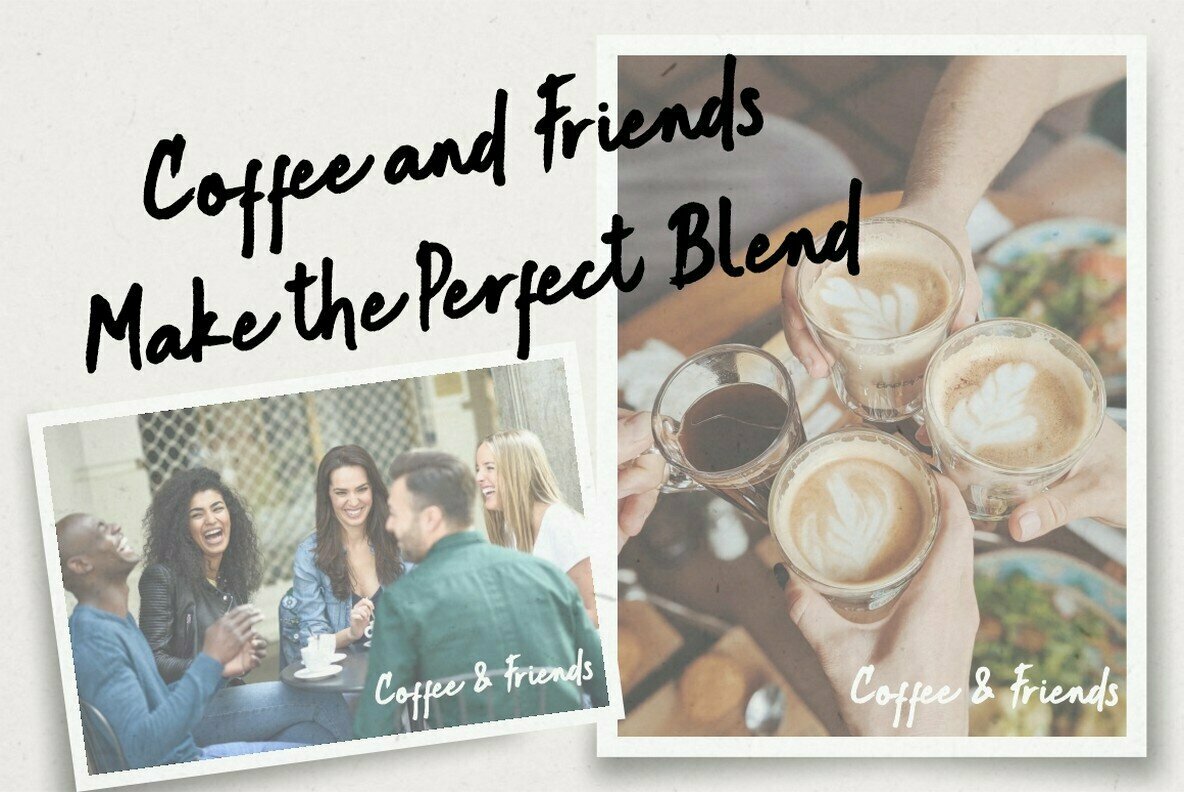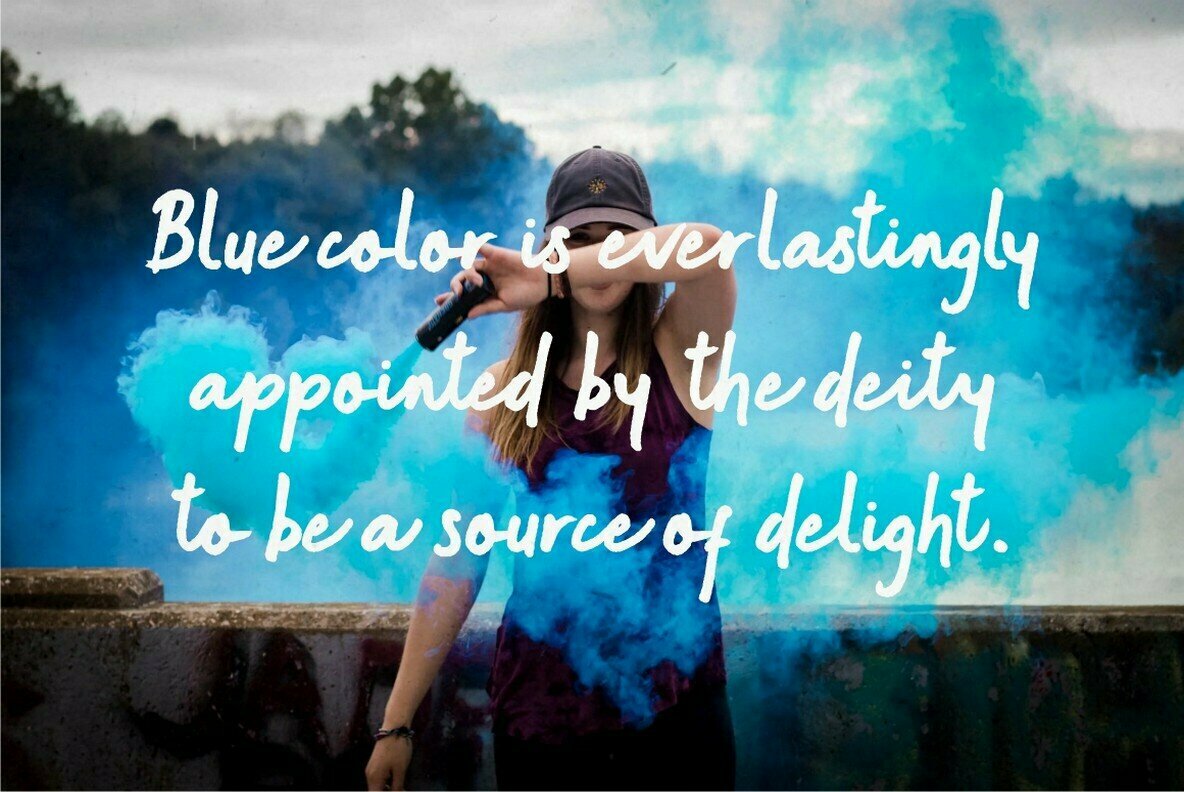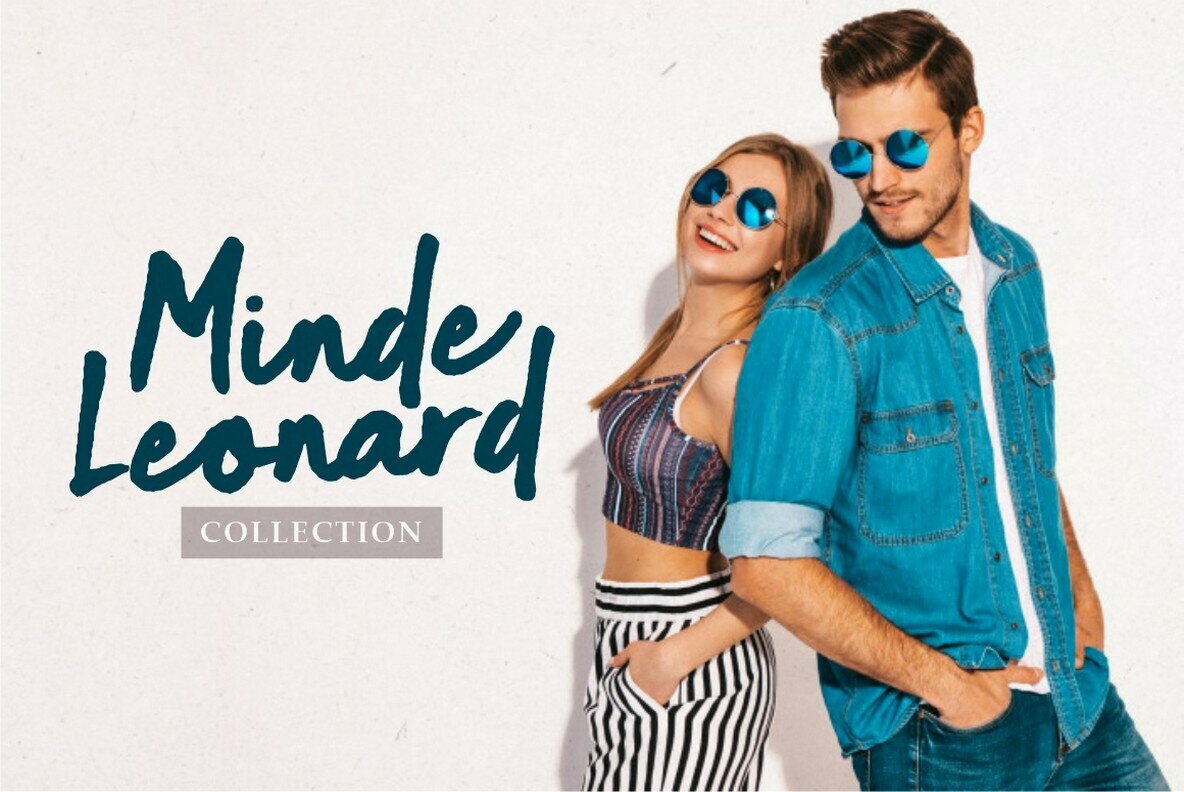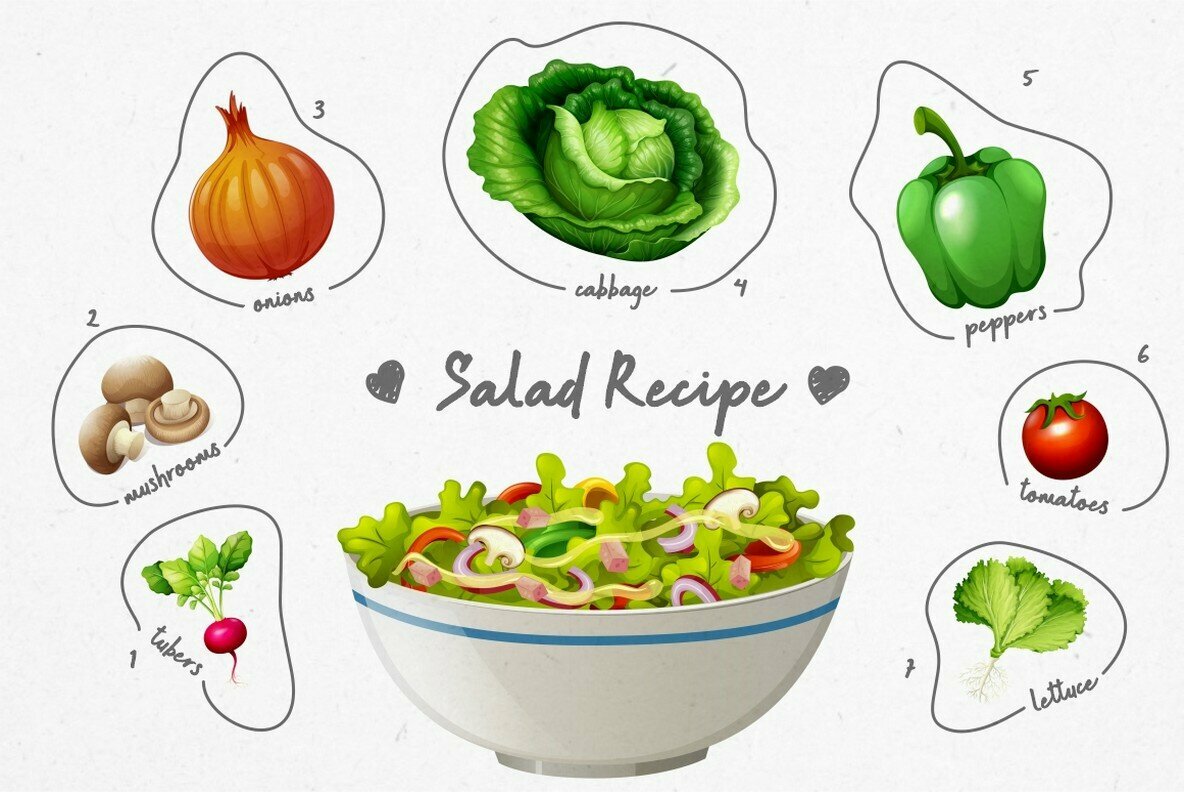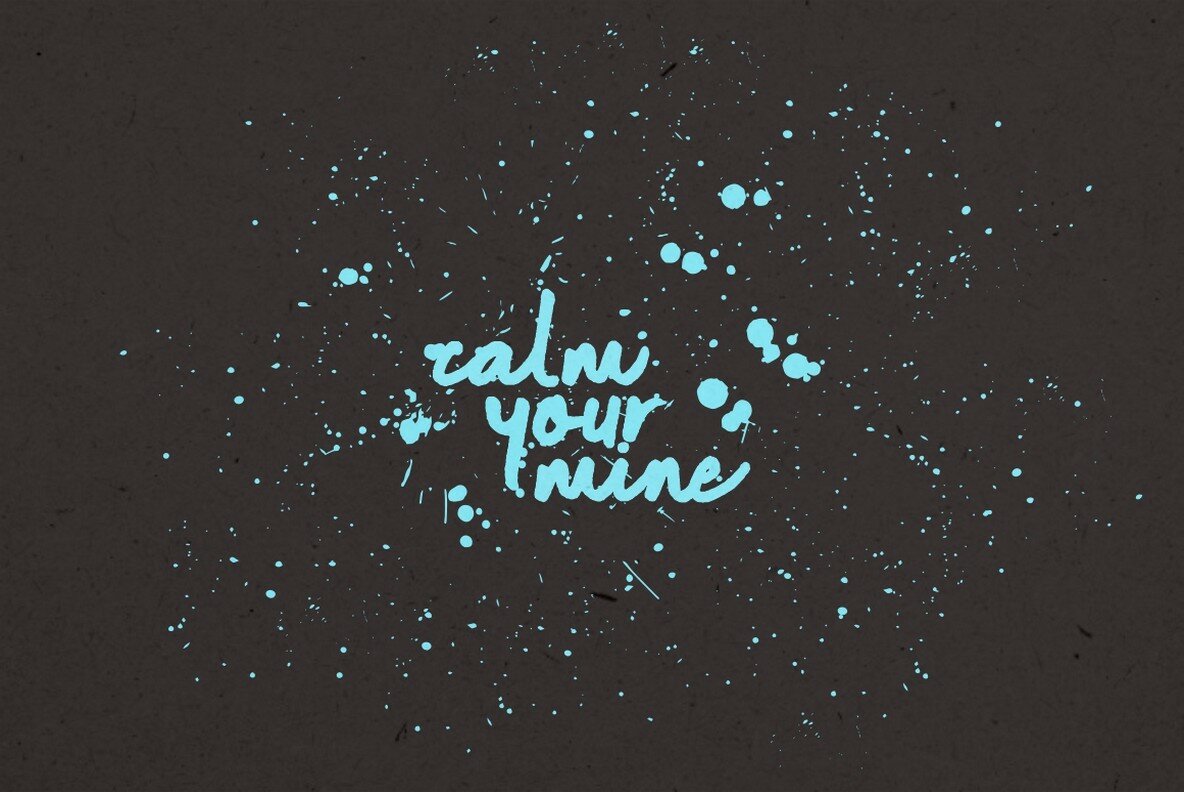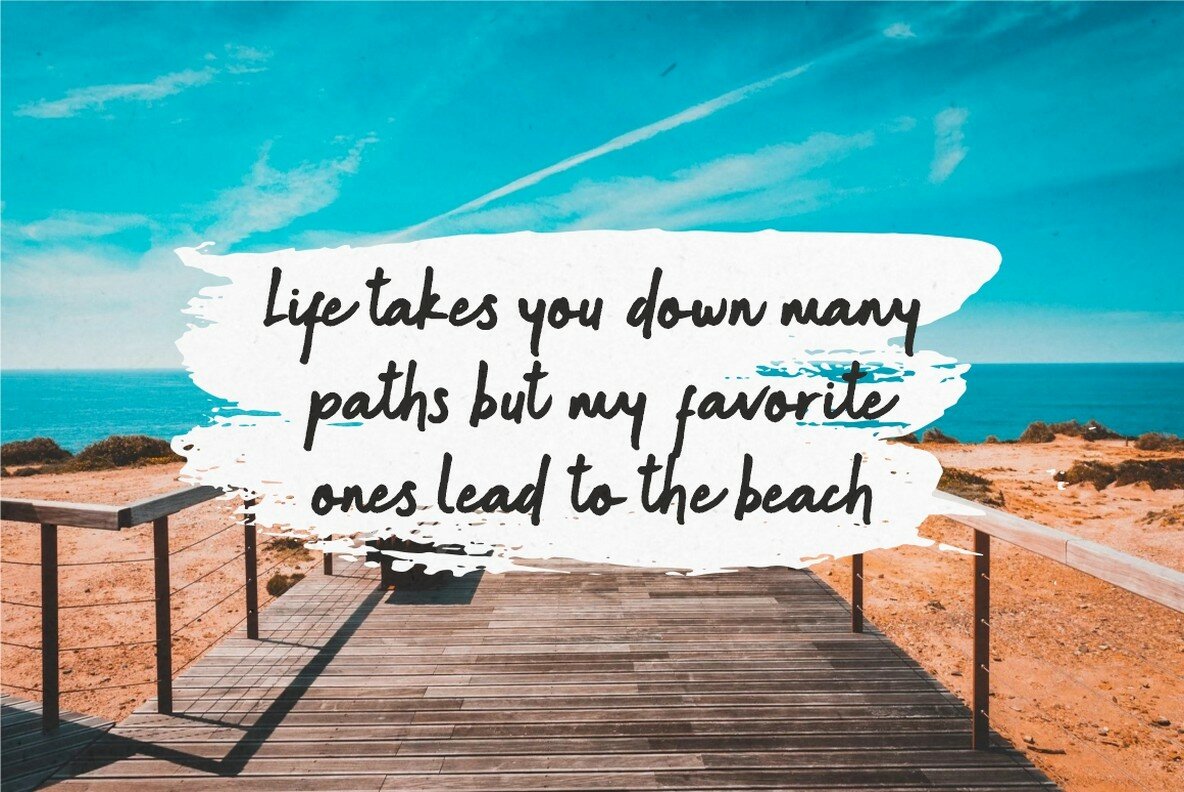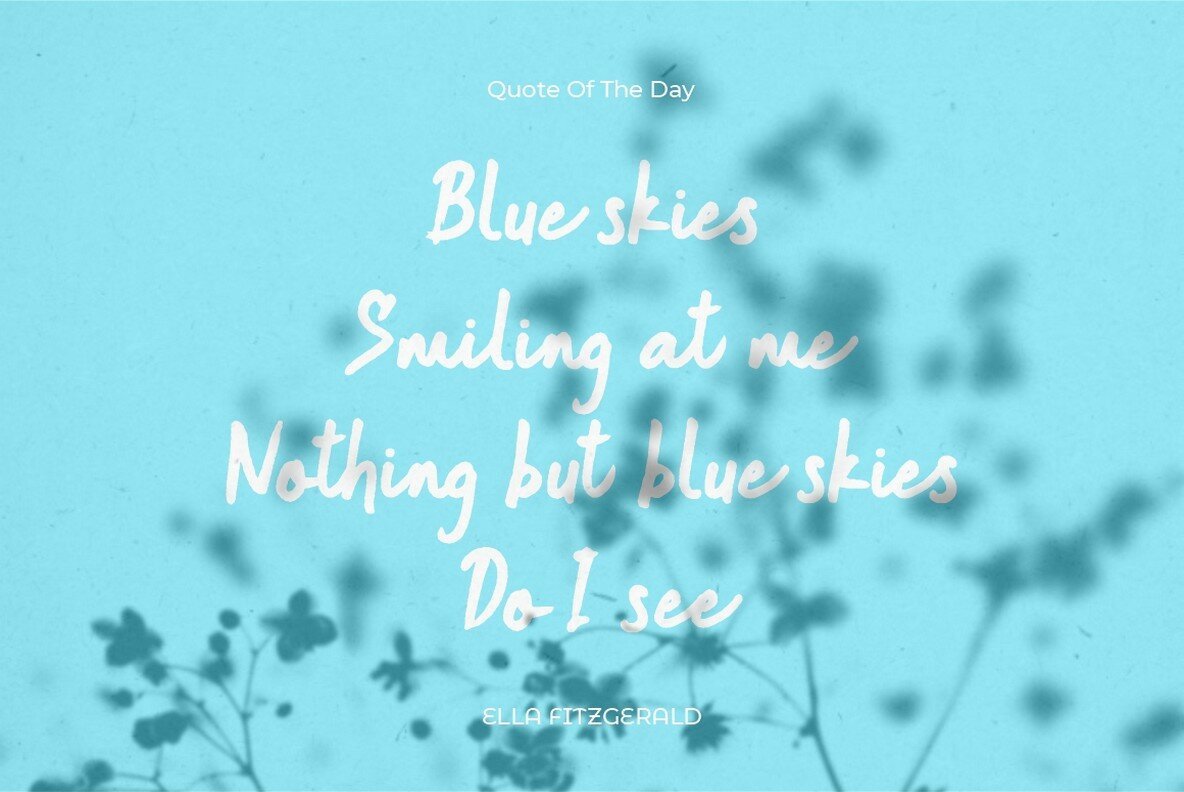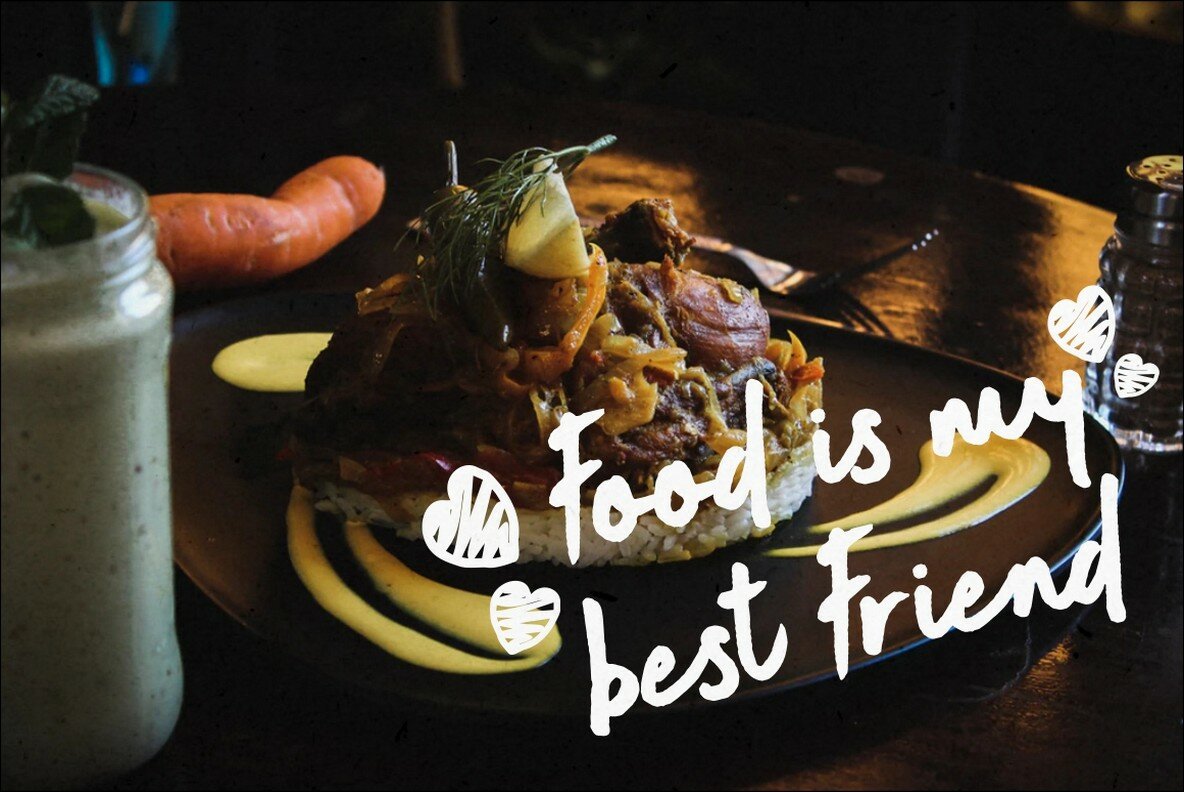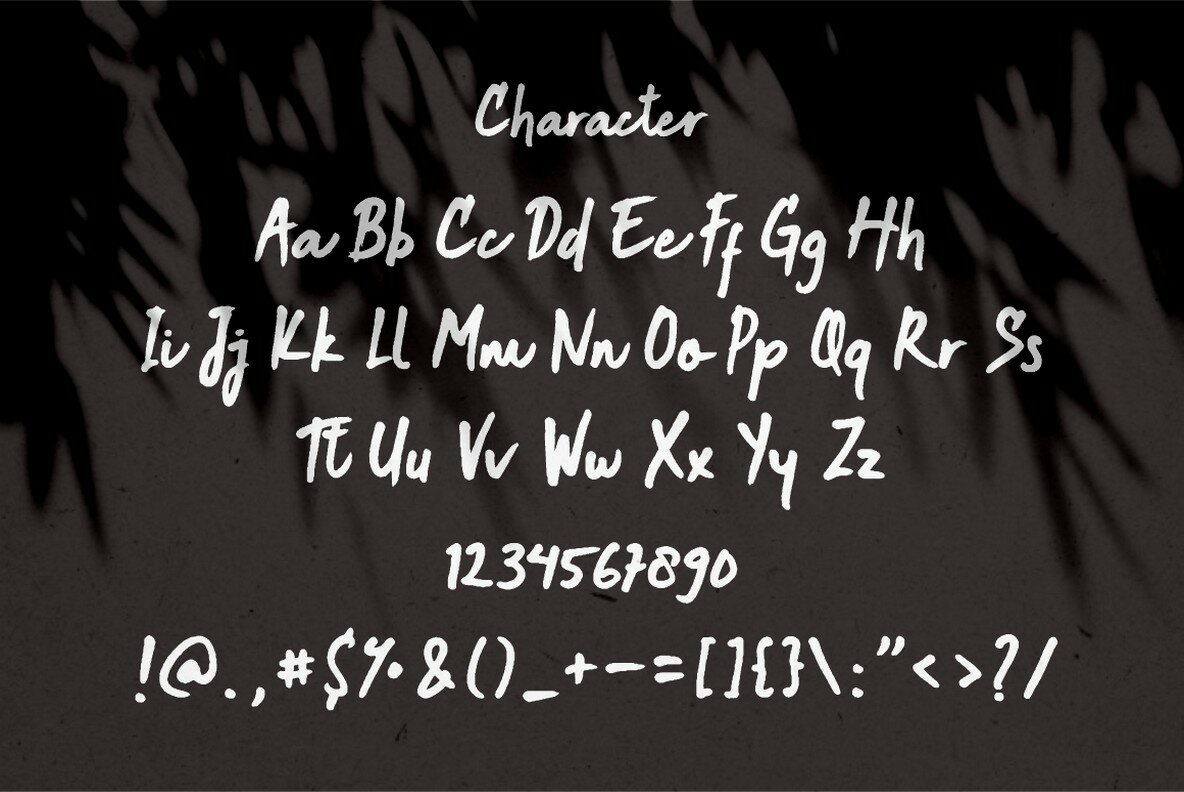
Joy Friends Font
Joy Friends
Joy Friends is my natural writing font, I made it from writing on paper with a marker and then scanned it. Then fix some parts without losing their original shape.
Joy Friends is perfect for logo, quote, stationery, wedding designs, social media posts, advertisements, product packaging, product designs, label, photography, watermark, special events or anything.